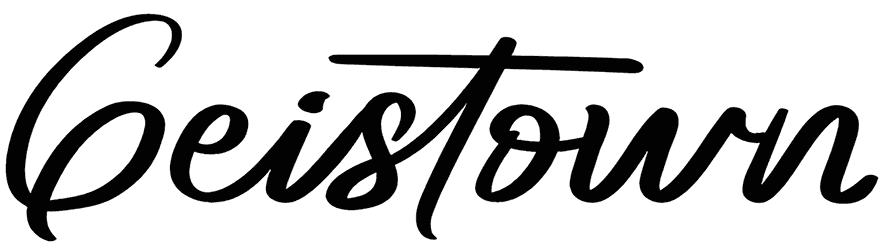
Geistown Font
Don’t go into so much trouble giving your content an elegant look because that is achievable simply by a script font. Take Geistown as an example, its unparalleled design makes it perfect for invitation cards, logos, packaging, and billboard advertisement.